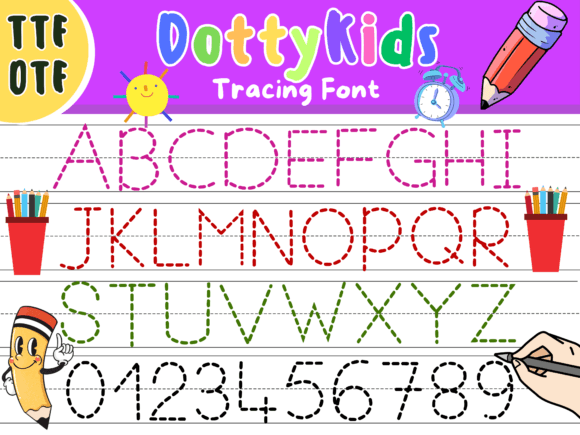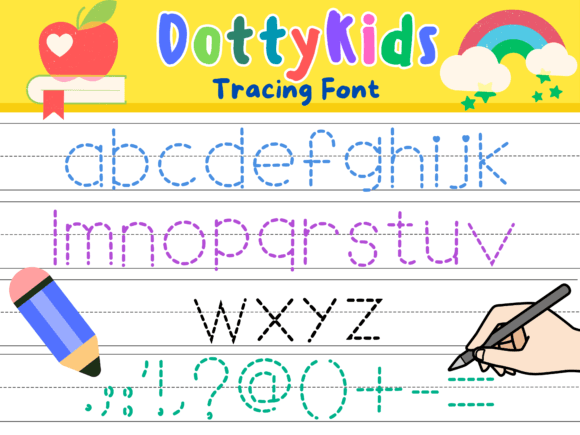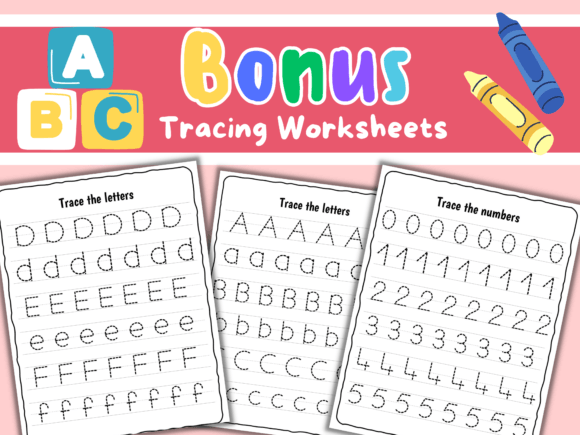
Dotty Kids Font
About the Dotty Kids Font
The wait is over! The incredible Dotty Kids Font is now available for your design toolkit. This font is ideal for use in various educational settings, including classrooms, homeschooling environments, and tutoring sessions. It can be utilized in worksheets, activity books, or any learning materials designed to enhance children’s literacy and numeracy skills.
Dotty Kids’ playful, rounded forms make it perfect for children’s books, playful branding for educational toys or children’s clothing, and eye-catching posters for kids’ events. Its friendly personality also lends itself well to short-form content like website headers or social media graphics targeting a younger audience. However, its informal style is less suitable for lengthy text blocks or applications requiring high readability, such as body copy or user interfaces.
Pairing Dotty Kids with a clean sans-serif like Open Sans for body text creates a balanced design, while a playful script font like Pacifico could add a whimsical touch to headings or logos. Alternatively, a geometric sans-serif like Montserrat would offer a modern contrast, suitable for a more contemporary children’s brand.
The font’s overall personality is cheerful and approachable, conveying a sense of fun and energy. It’s best used where a friendly, engaging aesthetic is desired, avoiding contexts that demand formality or sophistication.